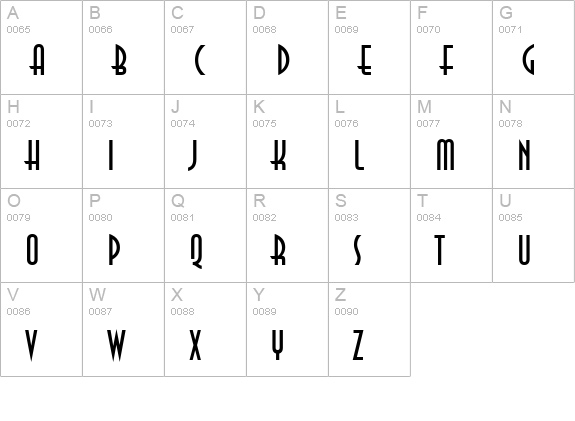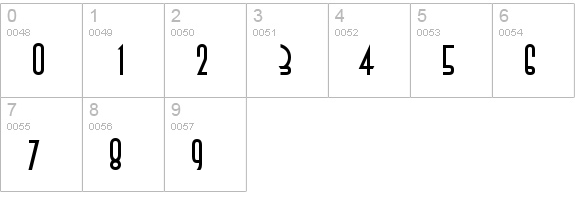
Asia Normal is the standard, neutral variant in the Asia typeface family \xE2\x80\x94 well suited to general body text, paragraphs, and standard typographic work.
Asia Normal font is a versatile and elegant typeface that is perfect for a wide range of design projects. Its clean lines and classic styling make it suitable for both formal and informal settings. This timeless font exudes a sense of sophistication and professionalism, making it a great choice for logos, branding, invitations, and more. One of the best things about Asia Normal font is that it is available for free download at FontsMarket.com. This means that you can easily add this stylish font to your collection without having to spend a dime. Whether you are a designer looking to enhance your portfolio or a business owner wanting to give your branding a fresh new look, Asia Normal font is a fantastic option that won't break the bank. With its wide range of characters and glyphs, Asia Normal font offers excellent versatility and can be used in multiple languages. Its timeless design ensures that it will stand the test of time and remain a staple in your font library for years to come. Download Asia Normal font for free today and elevate your design projects with its timeless elegance.